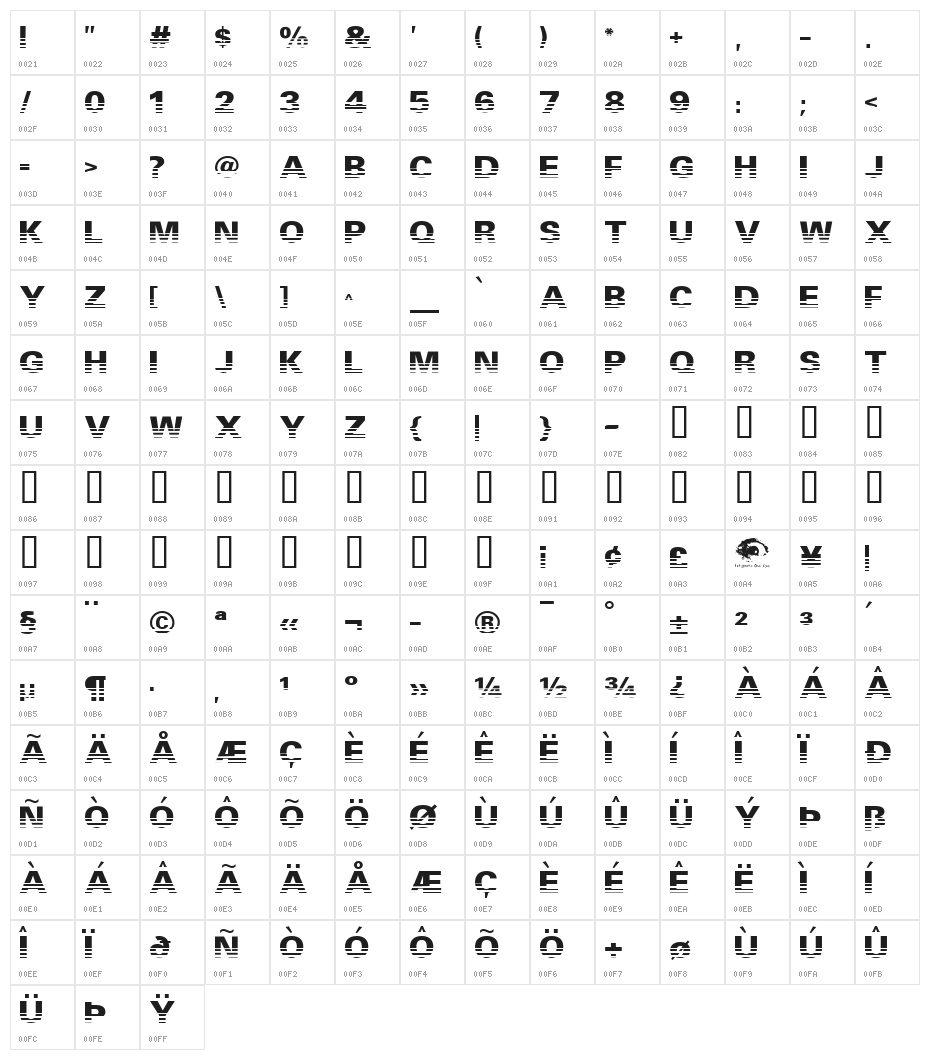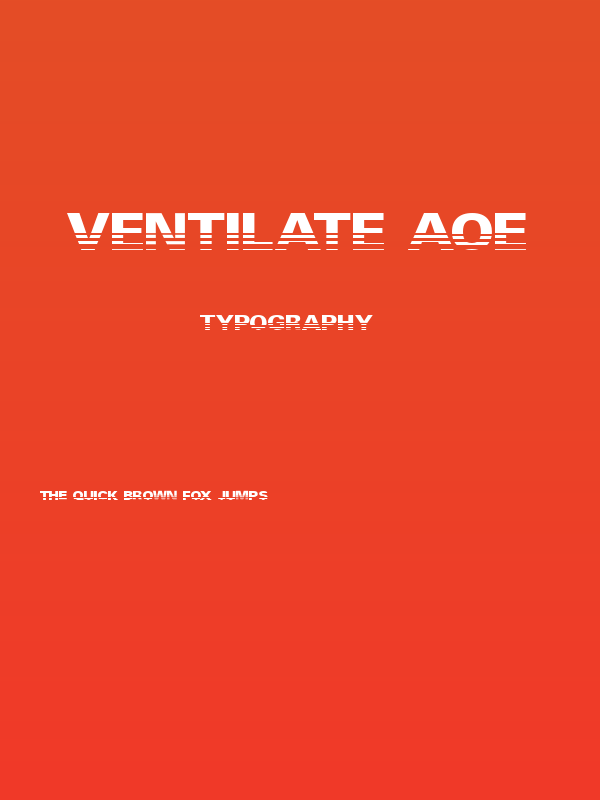
Ventilate AOE Font
Ventilate AOE Description
This font features a bold, modern design with a unique horizontal line pattern that slices through each character, creating a dynamic and eye-catching effect. The uppercase and lowercase letters maintain a consistent width, contributing to a strong visual impact. The numerals and special characters follow the same stylistic approach, ensuring uniformity across all elements. The font's distinct style makes it suitable for projects that require a contemporary and edgy look, while the bold weight enhances its visibility and readability.
| Proposed Projects | Ideal for branding, advertising, posters, and any project needing a modern, striking typeface. |